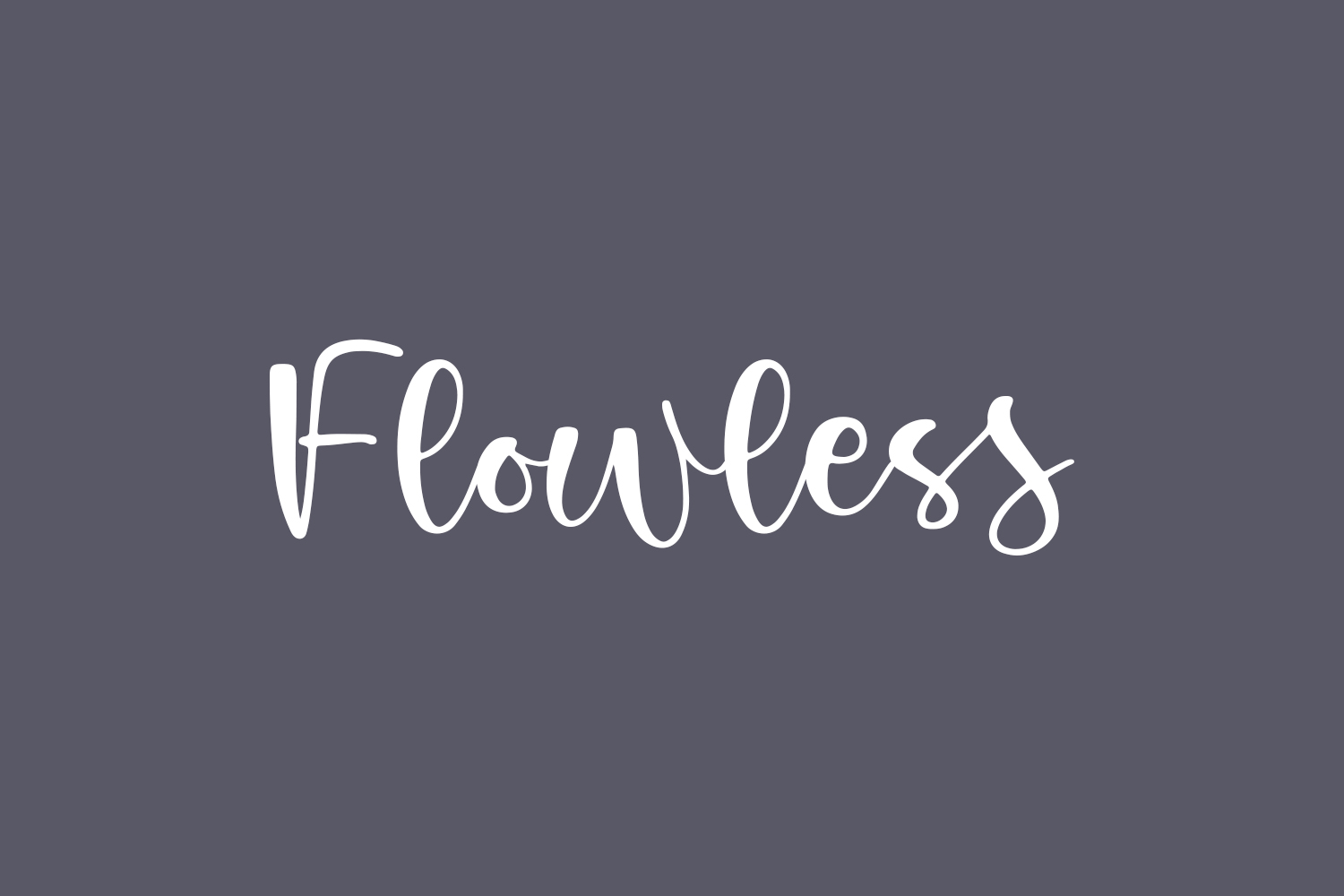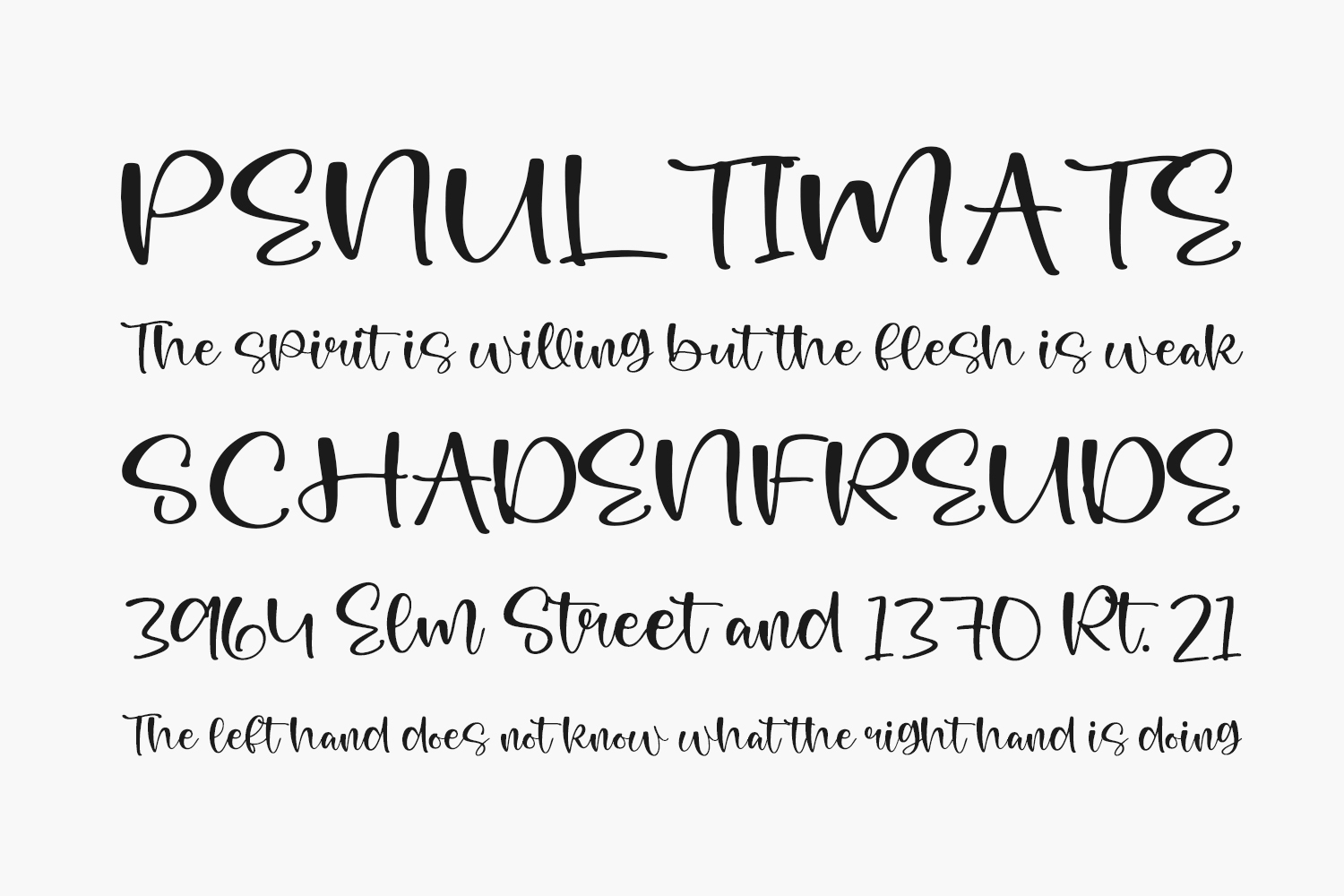
Flowless Free Font is an exquisite script font designed for a myriad of purposes, including packaging, invitations, flyers, mockups, event posters, and more. With its seamless flow and balanced aesthetics, Flowless adds a touch of sophistication to any design project, making it an ideal choice for those seeking high-quality vibes. Download the font for free if you need it for personal use or purchase the full version for commercial use.
Designed by Perspectype Studio